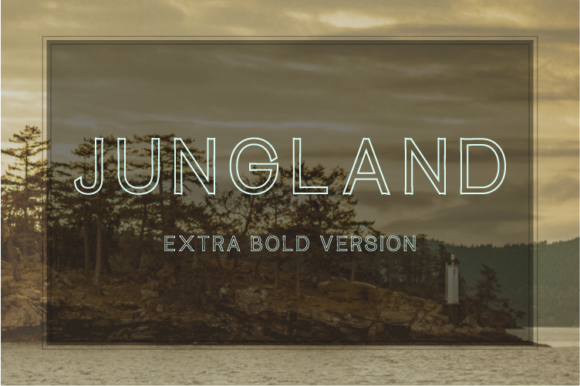
Introducing Jungland Outline Extra Bold - A Sans Serif Font with Enchanting Curves and a Captivating Story to Unfold.
In a world where fonts often blend into the background, Jungland Outline Extra Bold emerges as a radiant star, illuminating your designs with its bold strokes and captivating charm. This extraordinary Sans Serif font, meticulously crafted by the visionary minds at Nan Design, is not just a collection of letters; it's an invitation to let your creativity flourish and paint your ideas in hues of distinction.
Jungland Outline Extra Bold is a font that dances across the boundaries of conventional typography, beckoning you to embrace a world of elegance and originality. Its curves are not mere lines; they are rivers of artistry, flowing seamlessly to form characters that exude personality and purpose. Each letter carries a story, a whisper of the boundless possibilities that await you when you choose Jungland Outline Extra Bold.
Whether you're a seasoned designer seeking to elevate your branding projects to new heights or a budding artist exploring the depths of your imagination, Jungland Outline Extra Bold is the perfect companion for your creative journey. Its versatility is limitless, extending from the grandeur of logos and labels to the intimacy of wedding invitations and personal signatures. Let Jungland Outline Extra Bold be the brush that paints your ideas into reality, transforming them into breathtaking works of art.
With its warm and engaging style, Jungland Outline Extra Bold possesses an innate ability to breathe life into your designs. It's a font that speaks to the heart, evoking emotions and creating connections that transcend words. Experience the transformative power of Jungland Outline Extra Bold and watch as your designs flourish, capturing the attention of your audience and leaving them spellbound.
Immerse yourself in the world of Jungland Outline Extra Bold and discover a font that is more than just a tool; it's a muse, a partner in your creative endeavors. Let its bold strokes inspire you, its curves embrace you, and its versatility empower you to create designs that radiate brilliance and leave an indelible mark on the world.